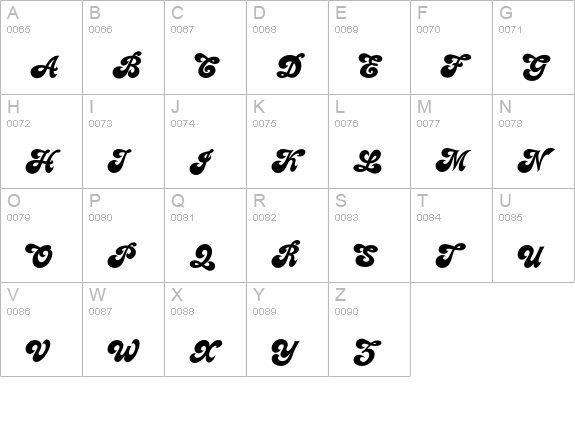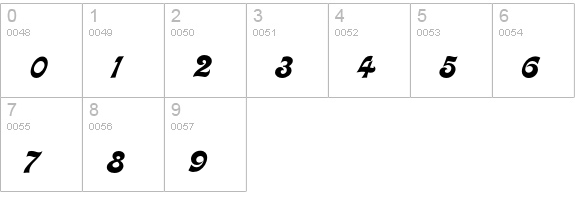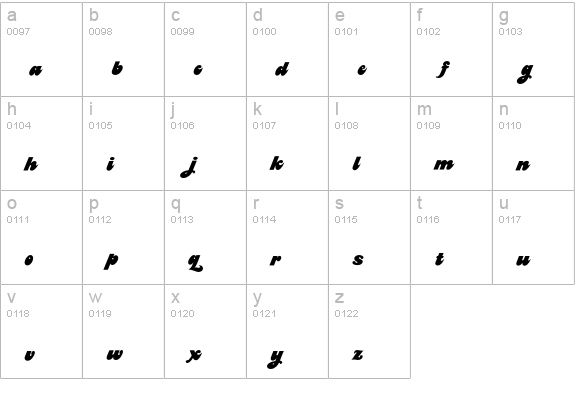
BenguaitCharismaScript Font Details
BenguaitCharismaScript is a stunning and elegant script font that exudes charm and sophistication. With its flowing curves and intricate details, this font is perfect for adding a touch of class to any project. Whether you're working on invitations, branding, or packaging, BenguaitCharismaScript will elevate your designs to the next level. What's even better is that this font is completely free to download! You can easily access BenguaitCharismaScript at FontsMarket.com, where you can add this beautiful typeface to your collection without any cost. Don't miss out on the opportunity to enhance your designs with this exquisite script font that is both stylish and versatile. Download BenguaitCharismaScript today and bring a touch of charisma to your creative projects.